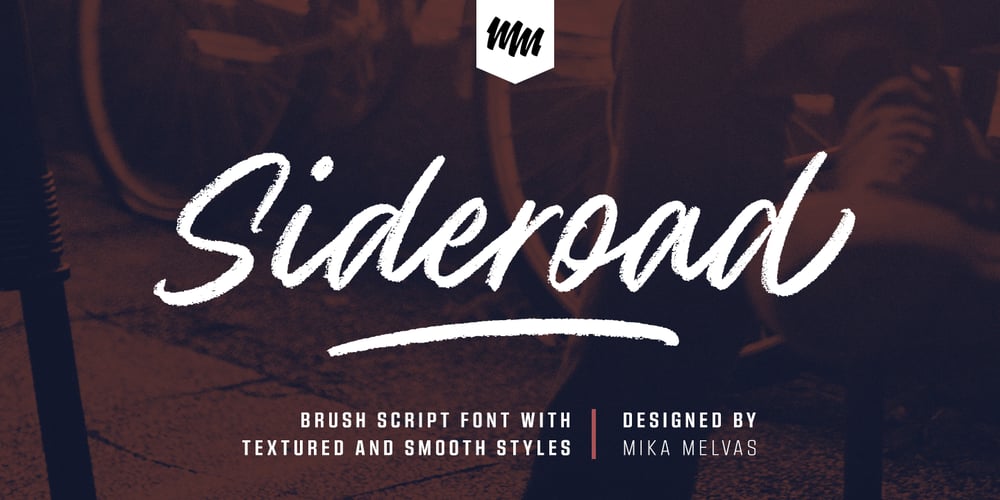
Sideroad Font Family was designed by Mika Melvas and published by Melvastype. Sideroad contains 2 styles and family package options. Sideroad is an intensive hand-drawn brush script font. It comes in two versions, Textured and Smooth. Textured version has this rough effect that comes when letters are drawn with pointed-brush on rugged surface. The Smooth version is, like the name says, smooth as silk with polished edges and properly drawn forms. Sideroad includes two sets of lower case letters to give variation and more imperfect hand-drawn effect. You can cycle these two sets by enabling Contextual Alternates OpenType feature. It also has set of lower cases without connector strokes. And a set of lower cases with end swashes. On top of these there are also a few underlines to give that final punch to your design.